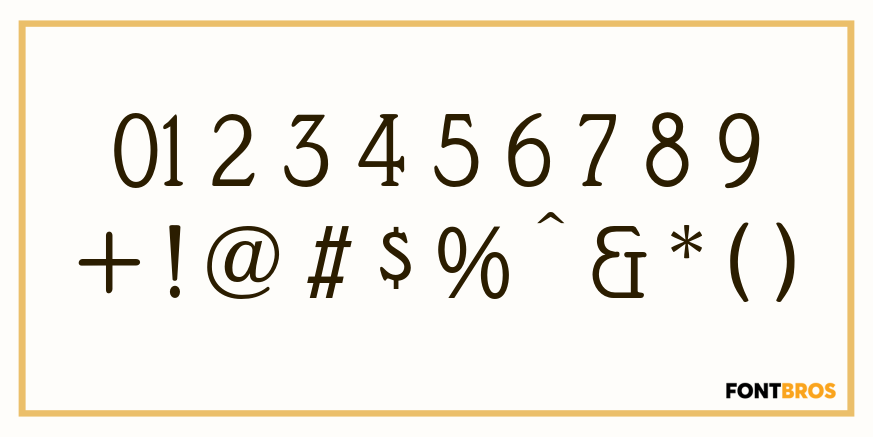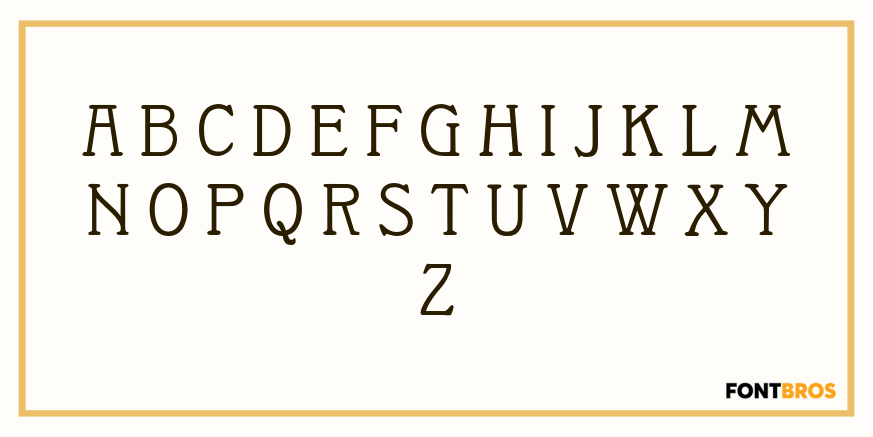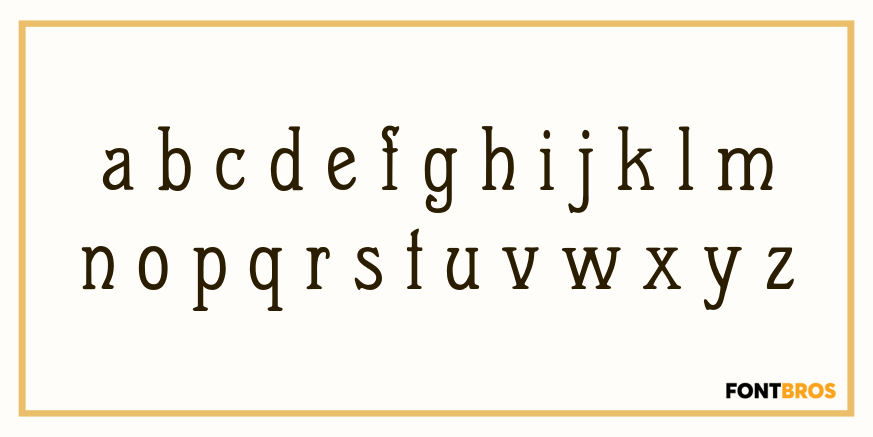
Berolina
A circa 1900 type from the foundry of W. Grauneau, Berlin.
A great utility face as it works well as the ?plain? face with other decorative type of the same era.
Reads well in paragraphs of copy.